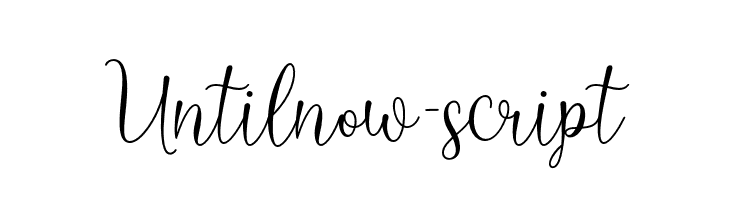
A playful and elegant script font with fluid, connected letterforms.
A dynamic and elegant script font with flowing, connected letterforms.
A flowing, elegant script font with dynamic strokes and a modern flair.
An elegant script font with flowing, cursive strokes and artistic flair.